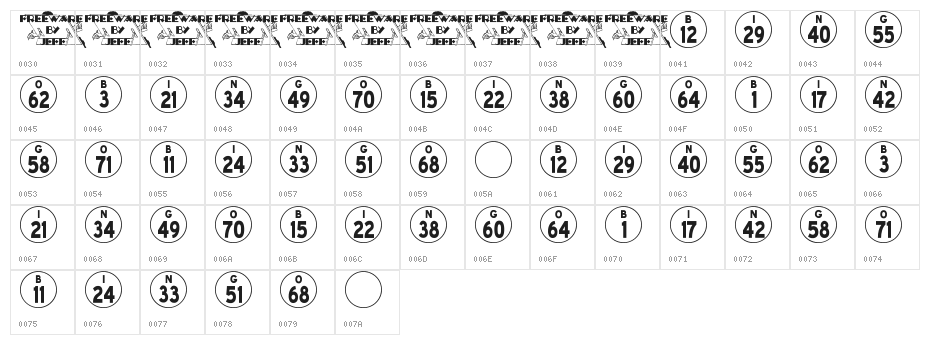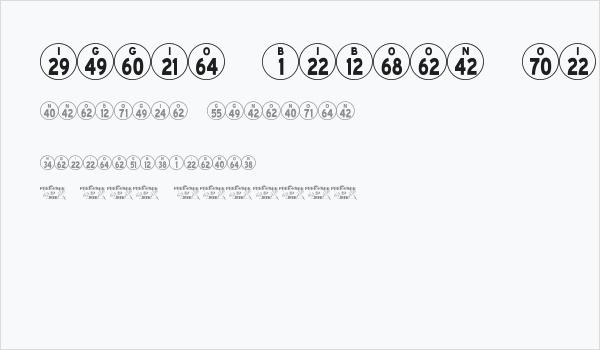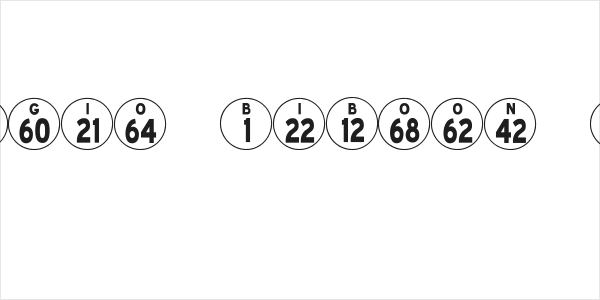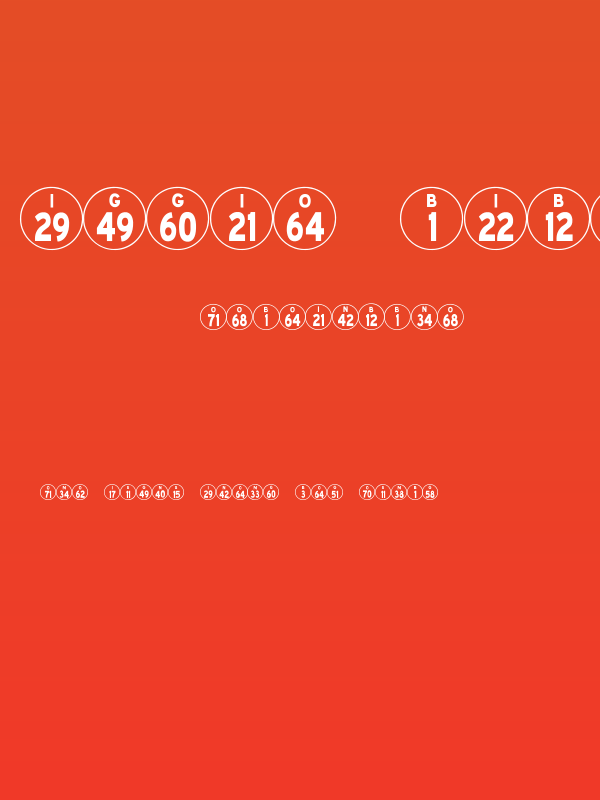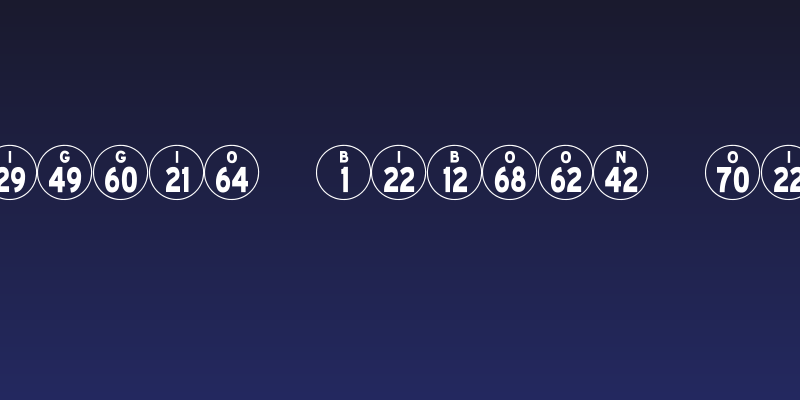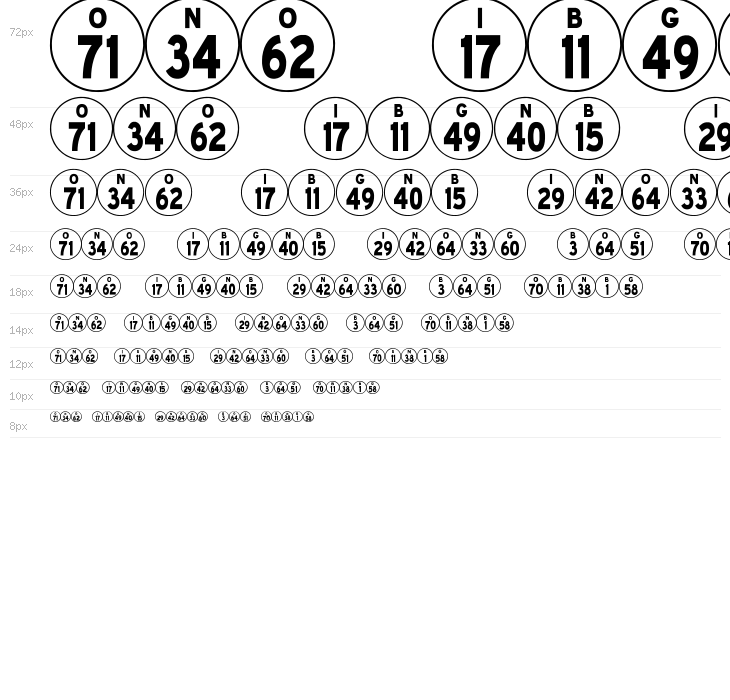
Bingo Player JL Font
Bingo Player JL Description
This font is characterized by its bold and clear sans-serif style, designed for high readability. Each character is enclosed in a circle, reminiscent of bingo balls, which adds a playful and engaging element to the design. The numbers are evenly spaced and aligned, ensuring clarity and ease of reading. The font's simplicity and boldness make it suitable for various applications where visibility is key. The overall design is straightforward, with a modern touch that can be used in both digital and print media.
| Use Case | Headlines, Logos, Educational Materials |
| Proposed Projects | This font is perfect for game designs, educational materials, playful branding, and any project requiring clear, bold text. |